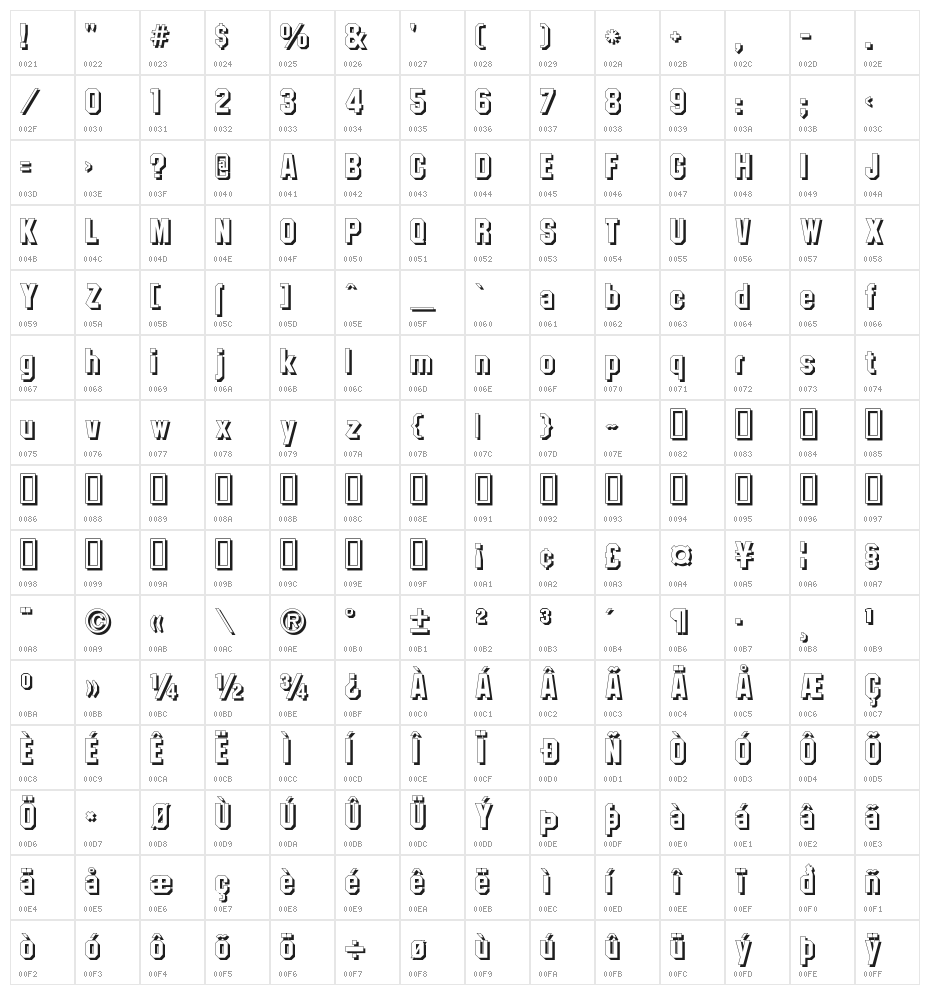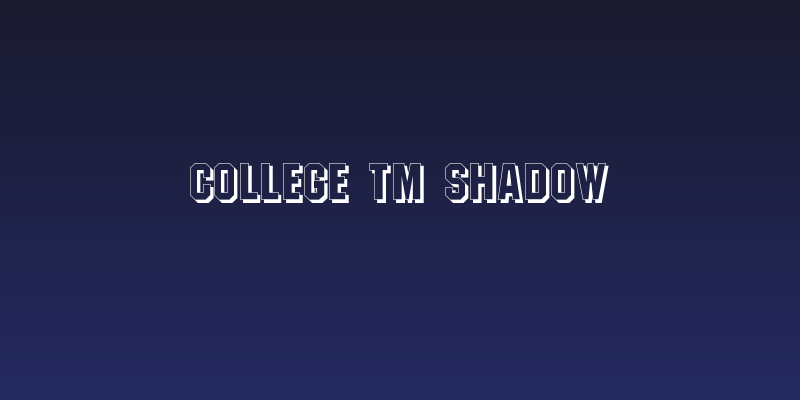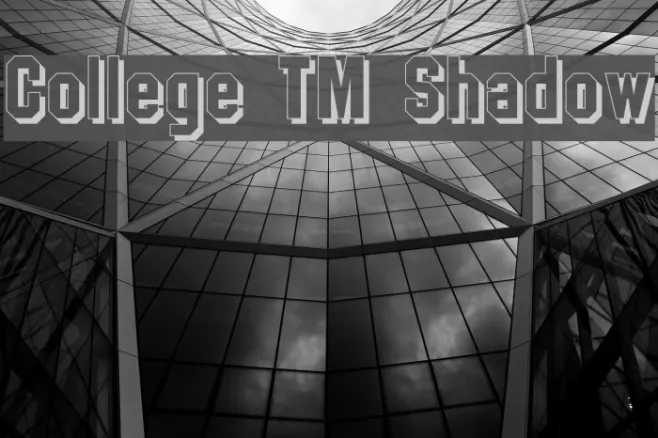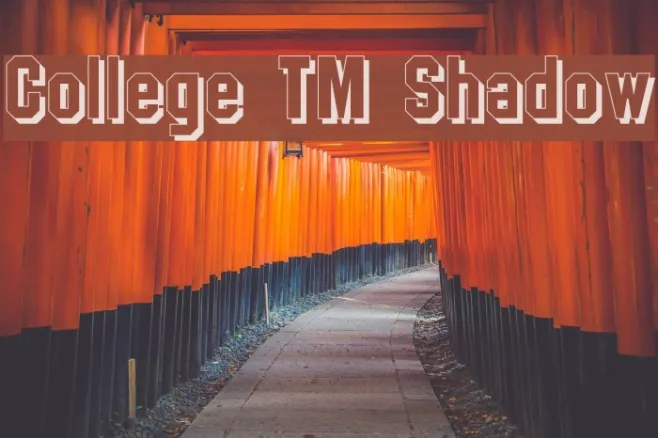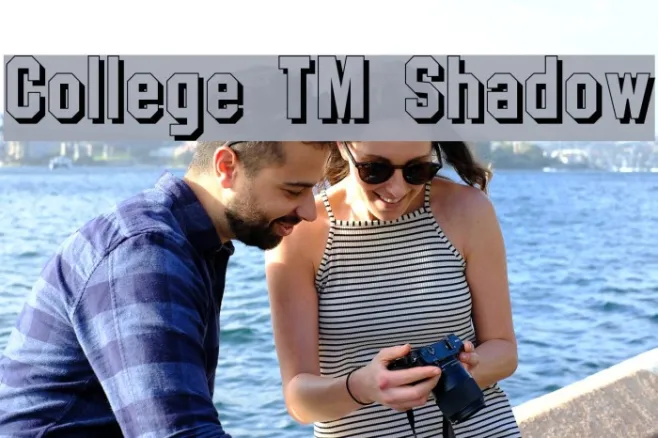
College TM Shadow Font
College TM Shadow Description
This font features a bold, three-dimensional shadow effect that gives it a striking and impactful appearance. The uppercase and lowercase letters are designed with a strong, geometric structure, emphasizing sharp angles and clean lines. The shadowing adds depth, making the characters appear as if they are lifted off the page. The numerals and special characters maintain the same bold style, ensuring consistency across all elements. This font is ideal for creating a sense of strength and authority, making it perfect for headlines or titles that need to stand out.
| Proposed Projects | Ideal for sports team logos, event posters, and any project requiring a bold, standout typeface. |